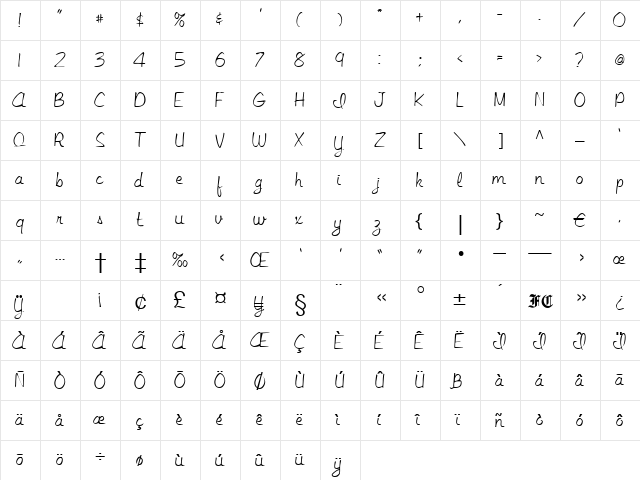
Veilchen Regular
Design Context for Veilchen Typeface
Veilchen takes a measured approach to typography — its balanced proportions and neutral character make it a reliable workhorse for both digital and print work.